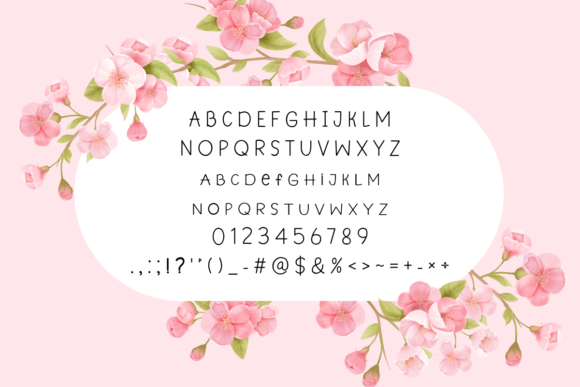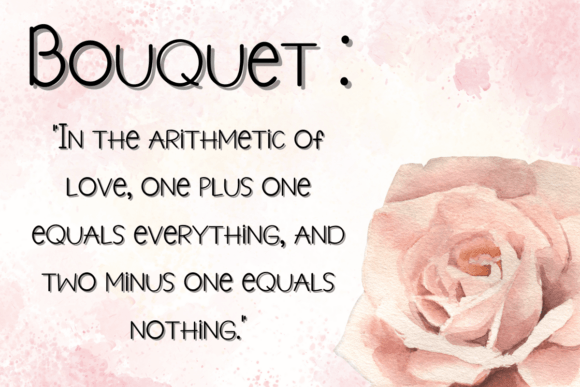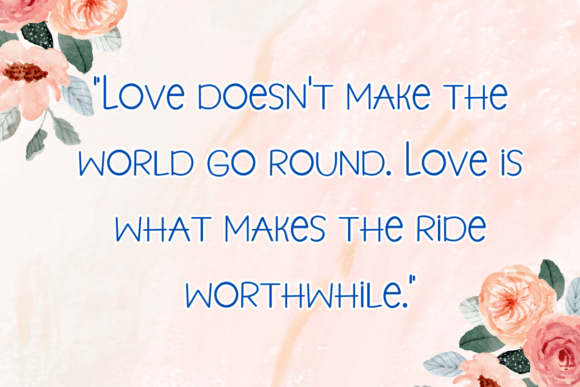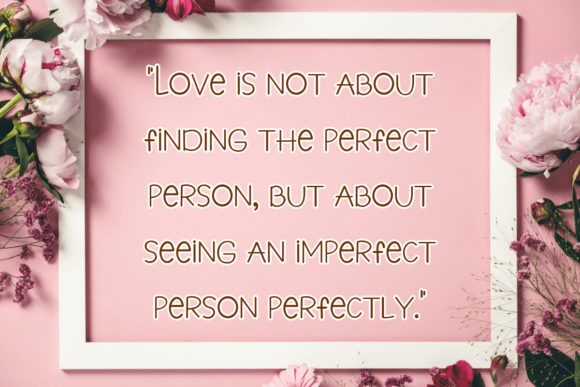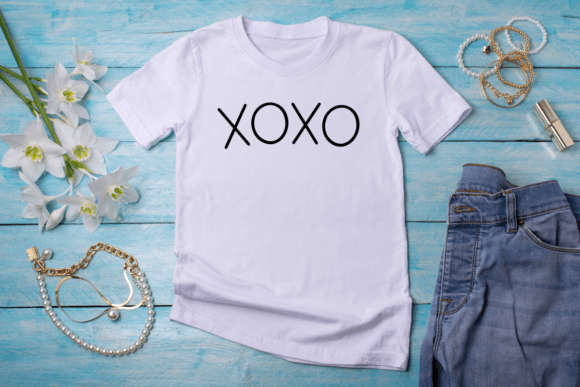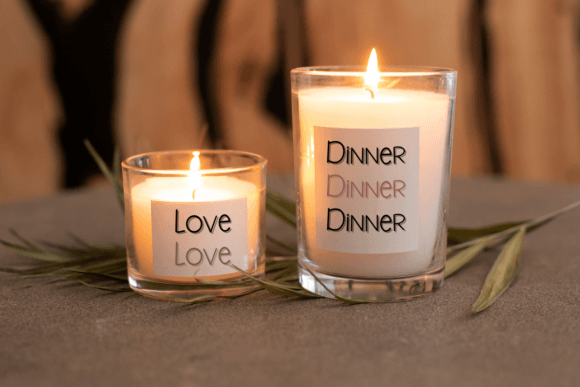
The Bouquet Font: A Beautiful Handwritten Style for Your Creative Projects
I still remember the time I was working on a greeting card design project, and I just couldn’t find the perfect font to convey the warmth and personality I wanted. The client was looking for something elegant yet playful, and I was on a tight deadline. That’s when I stumbled upon the Bouquet font. It was love at first sight! ✨
Bouquet is a beautiful handwritten font that’s perfect for taking notes, writing a diary, or making greeting cards. However, its versatility doesn’t stop there. You can use it for a wide range of designs, such as banner content, mugs, cards, shirts, stationery, social media posts, and more!
An Honest Review of Bouquet Font
• ✨ Elegant and sophisticated, yet playful and friendly
• 💕 Perfect for designs that require a personal touch
• 🎨 Great for use in a variety of creative projects, from digital designs to print materials
While Bouquet is an amazing font, there are a few things to keep in mind: 🤔
• ⚠️ Some letters may not be suitable for use in all caps, as they can appear a bit uneven
• ⚠️ Limited availability of special characters and glyphs
One of the best things about Bouquet is its OpenType features and glyphs. These allow you to add more variety and personality to your designs. Here are a few tips for using OpenType features and glyphs:
• Take advantage of swashes and ornaments to add more flair to your design
The Backstory of Bouquet Font
Bouquet was designed by a talented typographer who wanted to create a font that would capture the elegance and playfulness of handwritten script. The designer drew inspiration from traditional calligraphy and modern digital design, resulting in a font that’s both beautiful and versatile. 💕
Q: What type of projects is Bouquet best suited for?
A: Bouquet is perfect for a wide range of creative projects, including greeting cards, social media posts, stationery, and more.
Q: Is Bouquet available in different font styles?
A: Yes, Bouquet comes in a range of font styles, including regular, italic, and bold.